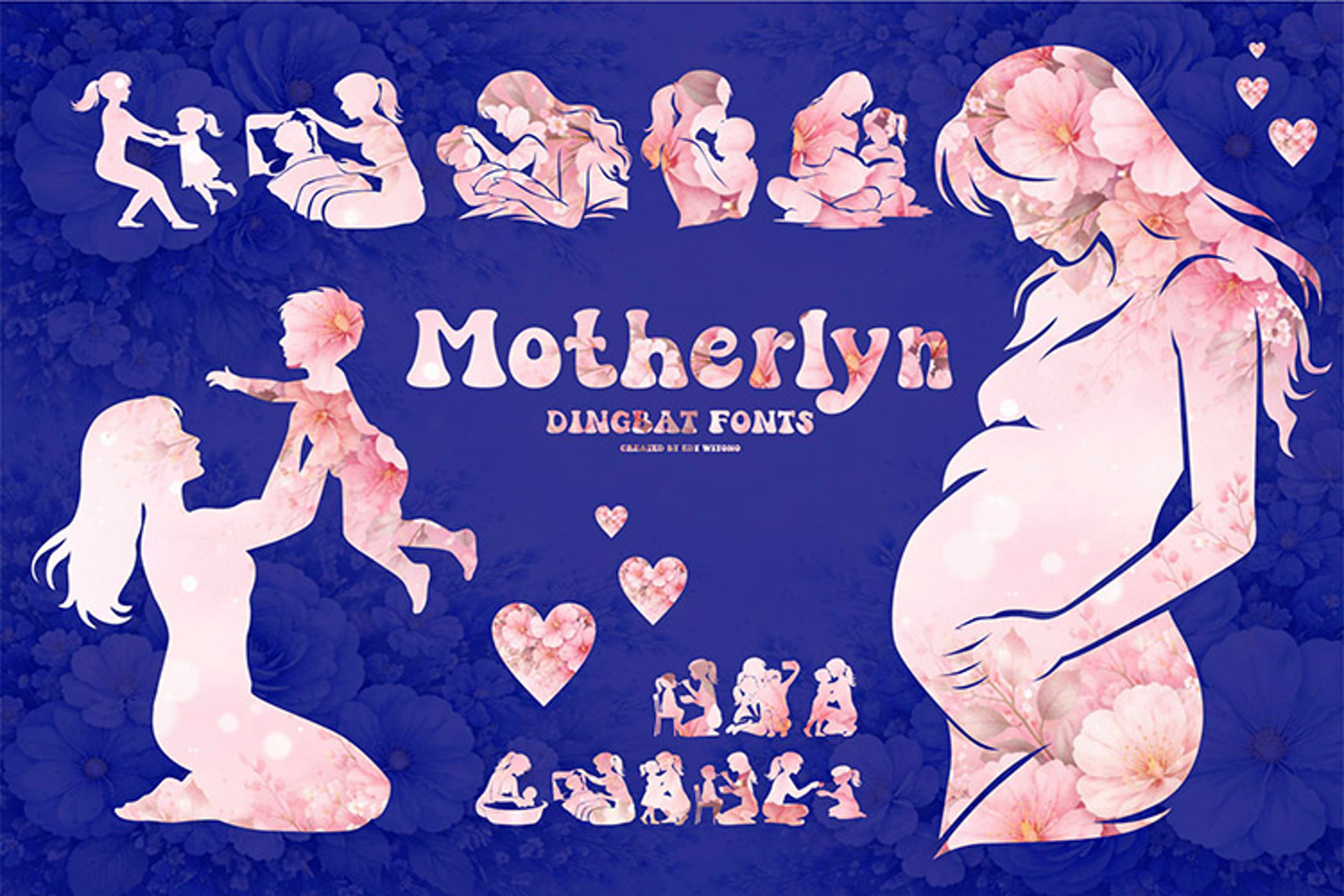
Motherlyn Font
Motherlyn
MOTHERLYN is a heartfelt motherhood-themed dingbats font that beautifully illustrates the journey of a mother — from pregnancy and childbirth to nurturing and raising children. Each character features a carefully crafted silhouette illustration capturing moments of love, care, tenderness, and emotional connection between a mother and her child.